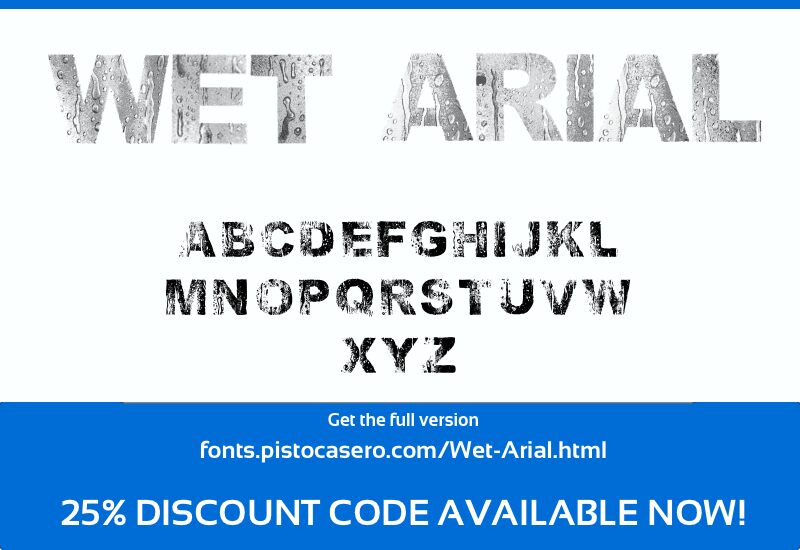
Wet Arial Light by Pisto Casero is a free eroded display font with broad, upright letters and a soaked, distressed surface. Rounded droplets, pitted patches, and ragged edges break through the forms, making the damage look more like splashed water than ordinary wear.
The font speaks most directly to grunge, skate, and alternative music audiences. On concert posters, album covers, and apparel, its waterlogged texture can turn a title into part of the artwork rather than a clean typographic label. For beverage packaging or event graphics, the scattered bubbles can echo condensation on cans and bottles, spills, spray, and other wet imagery.
Wet Arial Light